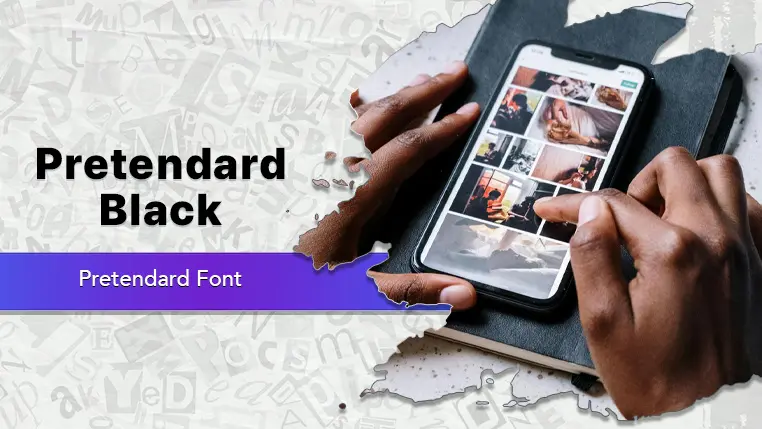
The Pretendard font family may be ideal for you if you enjoy working on an artistic design project. The lively, expressive look of this typeface, which was created by Kil Hyung-jin, makes it ideal for Websites and Digital Content.It's excellent for applications, websites, operating systems, and any digital product where consistent and clear typography is crucial. Its clean and modern aesthetic makes it suitable for company names, brand names, product names, logos, and slogans, conveying a sense of professionalism and contemporary design. With robust support for Korean, Latin, and Japanese scripts, it's an excellent choice for projects requiring consistent typography across these languages. and other light-hearted visual projects.
Black, Bold, Extra Light, Light, Medium, Regular, Semi Bold, Thin, Variable are the ten primary font styles of the Pretendard font family. You may build dynamic, visually appealing text layouts with the distinct flair that each style offers. With crisp, readable lines and a relaxed tone.